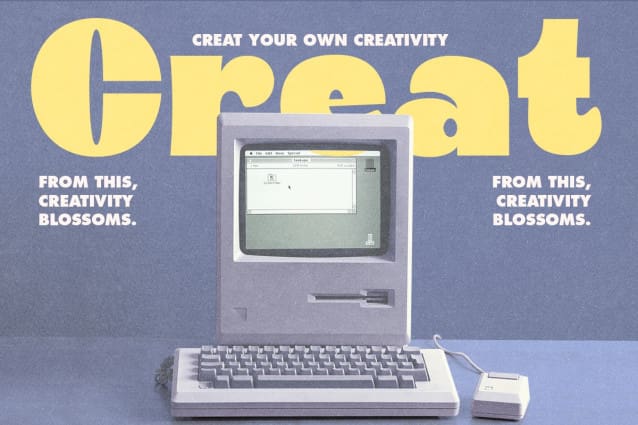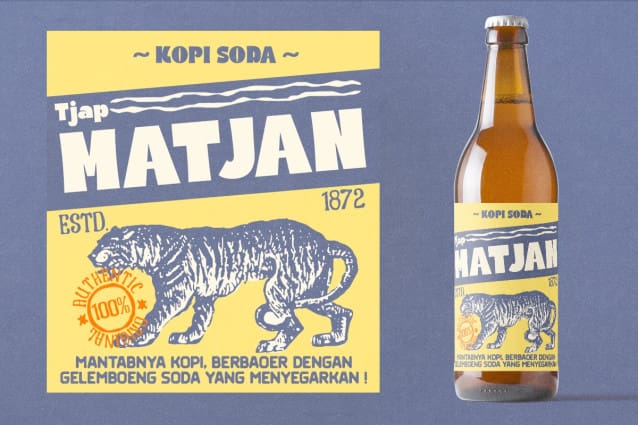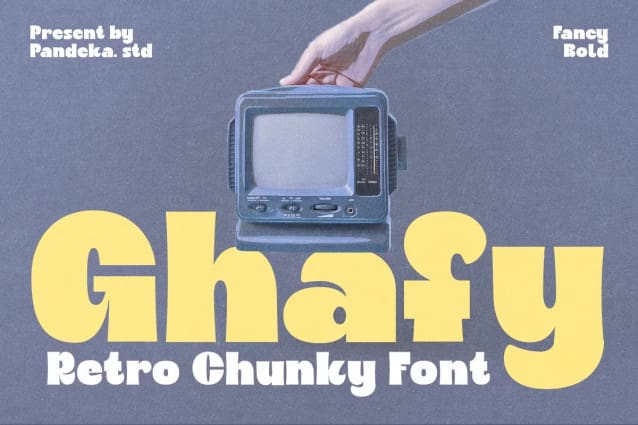
Ghafy Font
Ghafy Font is a display typeface that says we’re here to nostalgia! It brings back the 70s vibes with groovy, retro and unique typeface
This font fits perfectly into those nostalgic moodboards and vintage logos. It come with unique alternate and ligature that to give your any project to a unique vintage look